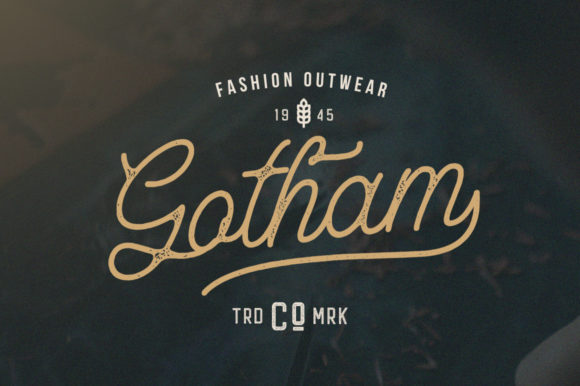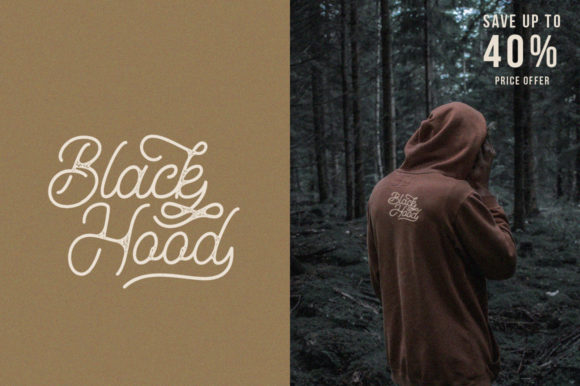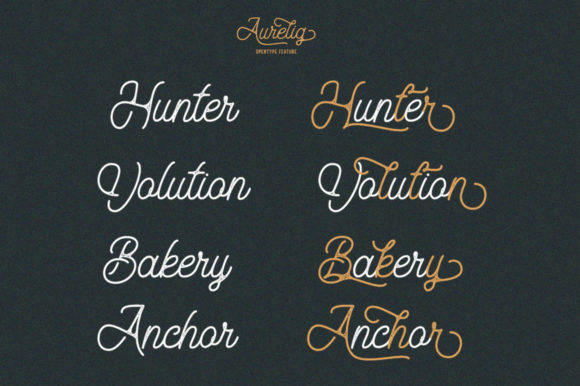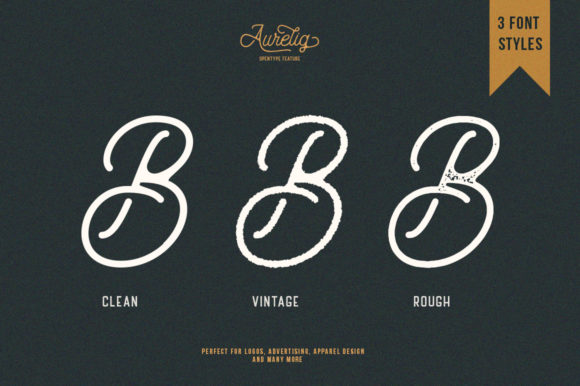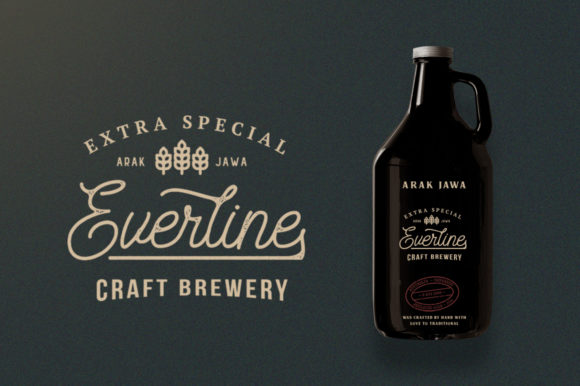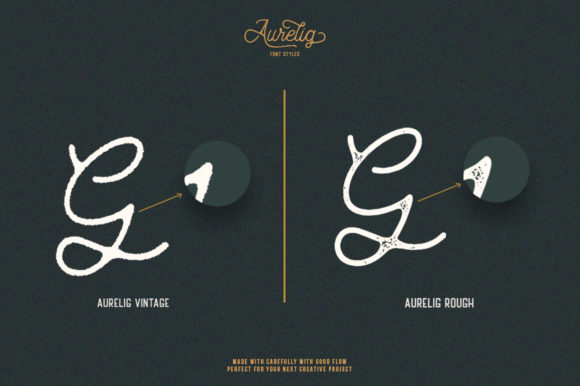
The Perfect Script for a Timeless Touch
Have you ever been browsing through a vintage market or antique shop, and suddenly, you’re struck by the charm of an old typewriter or a beautifully crafted invitation? The way the words seem to dance on the page, with a unique elegance and character, is truly captivating. That’s the magic of the Aurelig Vintage Font – a script that brings a touch of nostalgia and whimsy to any design project.
This mono line style font is inspired by the modern, vintage, and retro styles, making it the perfect choice for designers who want to create beautiful stationery art, eye-catching social media posts, and cute greeting cards. With its authentic feel, the Aurelig Vintage Font is a valuable asset for designers who want to add a personal touch to their work.
Aurelig Vintage Font Key Features
- Font Family: Aurelig Vintage
- Unique Characteristics: Distressed, vintage, and antique-style font with ornate details and subtle texture
- Language Support: Supports Latin-based languages, including English, Spanish, French, and more
Aurelig Vintage Font Review
Aurelig Vintage Font is a beautiful, elegant font that is sure to catch the eye. ✨ The intricate details and ornate design elements make it perfect for projects that require a touch of sophistication and luxury. ✨ The font is highly customizable, allowing you to adjust the size, color, and spacing to suit your needs.
One of the standout features of Aurelig Vintage Font is its versatility. ✨ It can be used for a wide range of projects, from wedding invitations and greeting cards to packaging and branding materials. The font is also highly legible, making it easy to read even at small sizes.
While Aurelig Vintage Font is a great choice for many projects, there are some limitations to consider. ⚠️ One of the main issues is that the font can be quite heavy, which may make it difficult to use for large blocks of text. Additionally, the font may not be suitable for digital applications, as it can be difficult to read on small screens.
Overall, I would highly recommend Aurelig Vintage Font for projects that require a touch of elegance and sophistication. While it may have some limitations, the font’s unique design and high level of customization make it a great choice for designers looking to add a little extra something to their projects.
Features
- Beautiful, intricate design elements
- Perfect for projects requiring sophistication and luxury
- Highly legible, even at small sizes
- Wide range of applications (wedding invitations, greeting cards, packaging, branding)
Tips for Getting the Most Out of Aurelig Vintage Font
Use Aurelig Vintage Font to add a touch of elegance and sophistication to your designs.
Pair it with distressed textures or watercolor backgrounds to create a unique and eye-catching look.
Experiment with different font sizes and styles to create visual interest and hierarchy in your designs.
Aurelig Vintage Font is ideal for:
Photography captions and descriptions
Artistic and creative projects
Marketing materials and branding
Alternatives to Aurelig Vintage Font
The Great Vibes Font is a beautiful, elegant script font that works perfectly for titles, headings, and body text. It’s ideal for creating a sense of sophistication and luxury. When to use: For high-end branding, luxury products, and elegant websites.
Great Vibes Font compares to Aurelig Vintage Font in its elegant and vintage feel, but it has a more refined and modern look. Great Vibes Font is more suitable for digital use, while Aurelig Vintage Font has a more distressed look.
The Playfair Display Font is a luxurious and elegant serif font that’s perfect for titles and headings. It’s ideal for creating a sense of sophistication and elegance. When to use: For high-end branding, luxury products, and elegant websites.
Playfair Display Font compares to Aurelig Vintage Font in its elegant feel, but it has a more refined and traditional look. Playfair Display Font is more suitable for digital use, while Aurelig Vintage Font has a more distressed look.